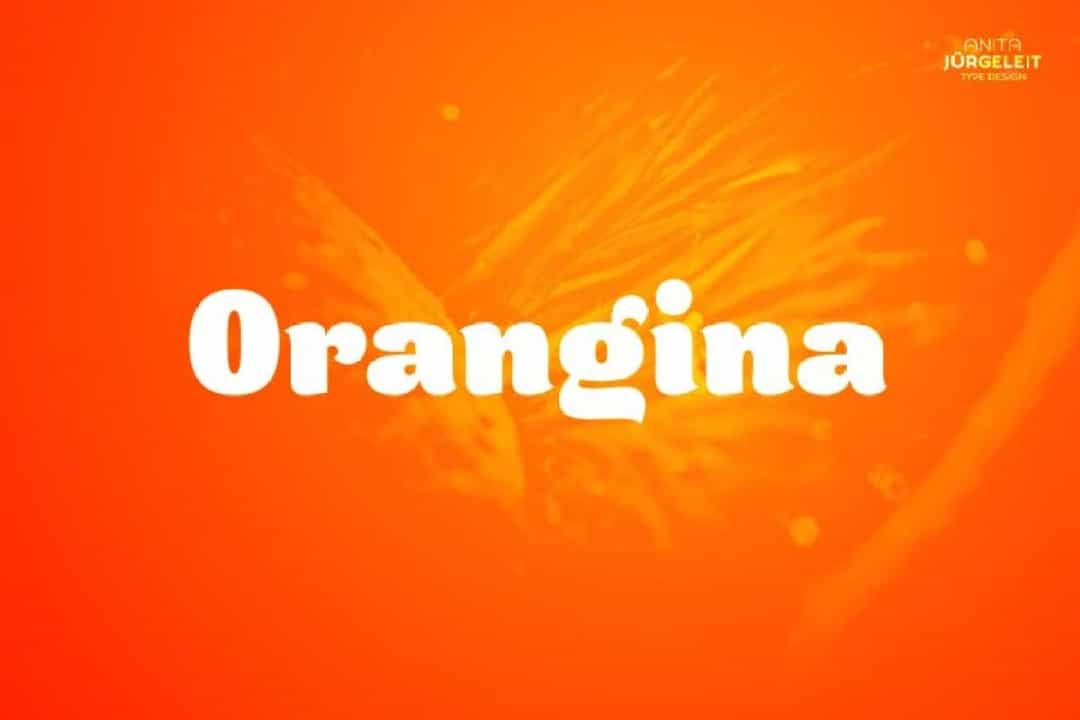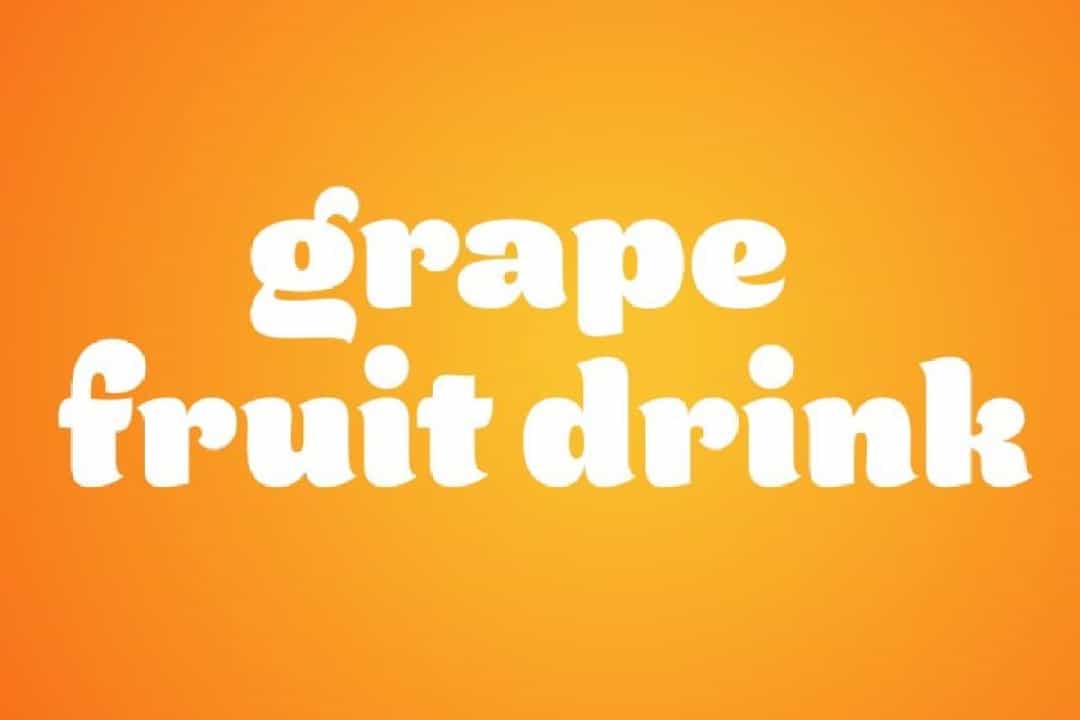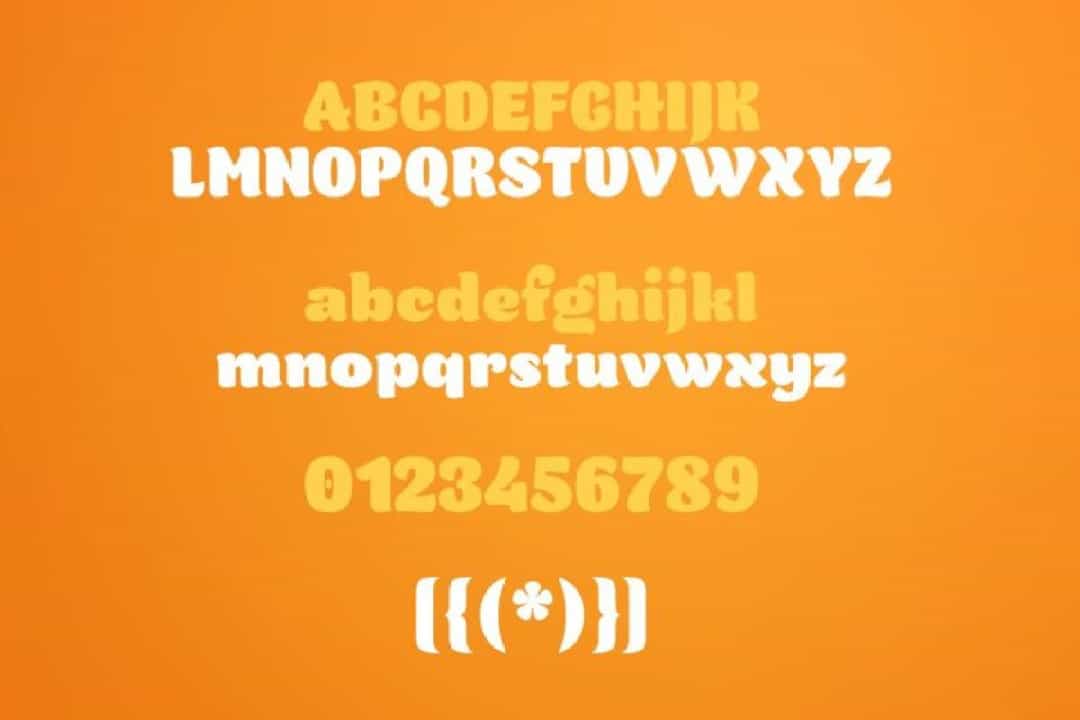
Orangina is a Display font which is very strong with high level of body contrast, created and distributed by Anita Jurgeleit. Consider for a moment how great it would be to spill a great font for the summer while it is still winter! The colours of the film are almost entirely white or an icy shade of blue, and there are Christmas decorations all over the place; Christmas songs are playing, and Jingle Bells is the most frequent one. But here is your chance to enjoy something bright, orange and healthy which is still visible even on a rainy day.